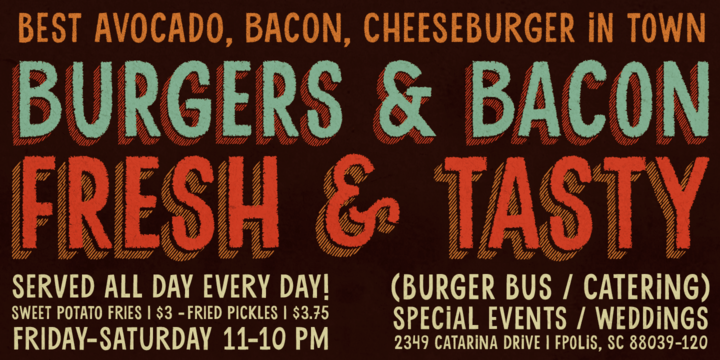
Cluster
A​​ ​hand​-drawn shadowed and textured display sans​. Strong and stylish, ​definitely​. Two glyphs per letter for a ​nice ​natural ​feel.
And ​let’s not​ forget to ​remark the hi-versatile solo versions​​. ​The​se fit many design applications, ​with the ​amazing ability of looking slightly serious or slightly fun​. ​But always genuine, you bet​!